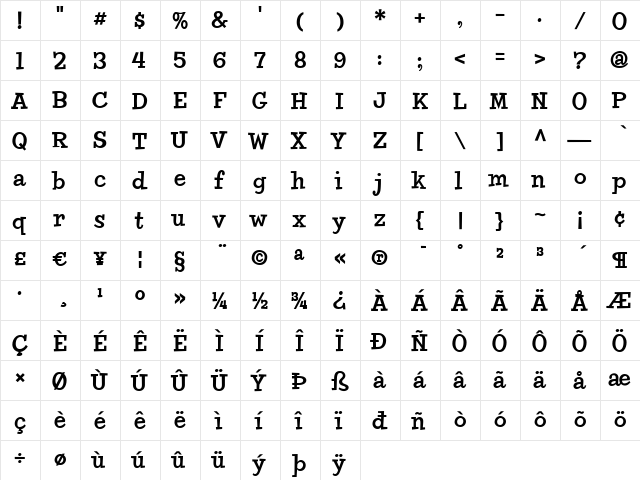
Chowderhead Medium
| Foundry | Font Diner |
| Designer | Stuart Sandler |
Design Context for Chowderhead Typeface
Chowderhead takes a measured approach to typography — its balanced proportions and neutral character make it a reliable workhorse for both digital and print work.